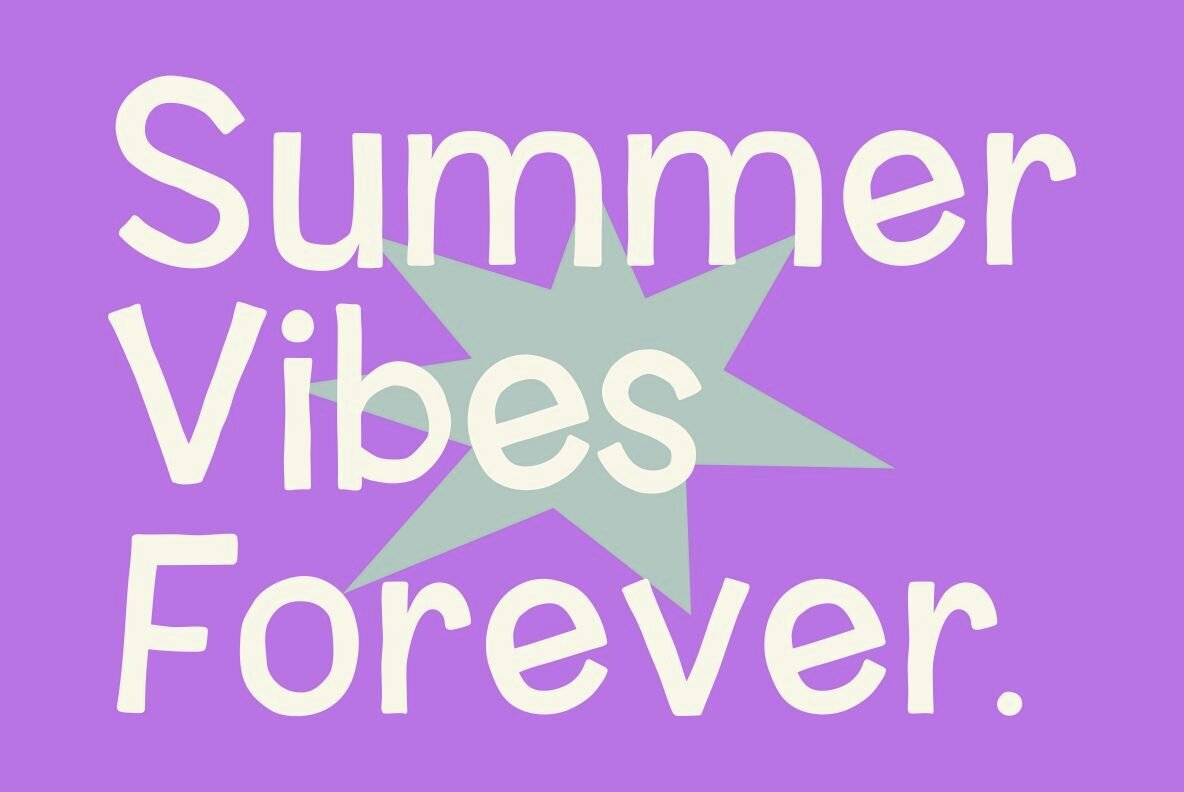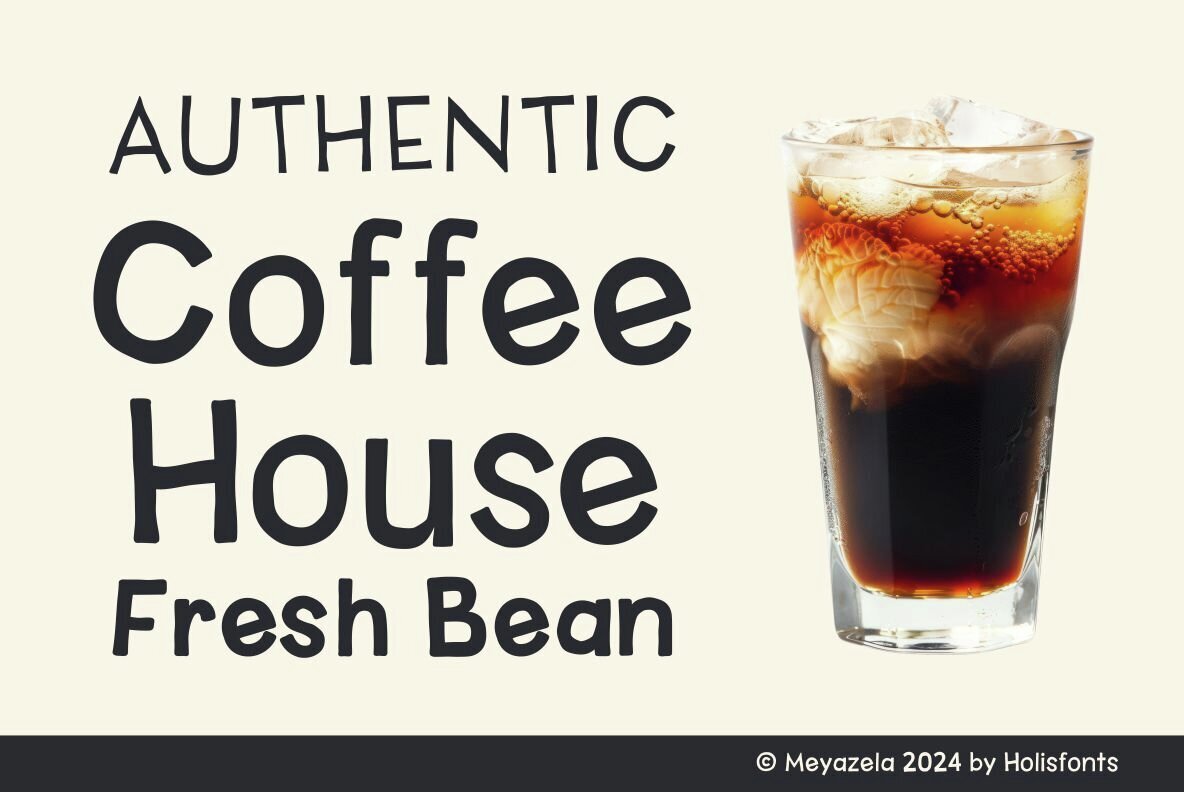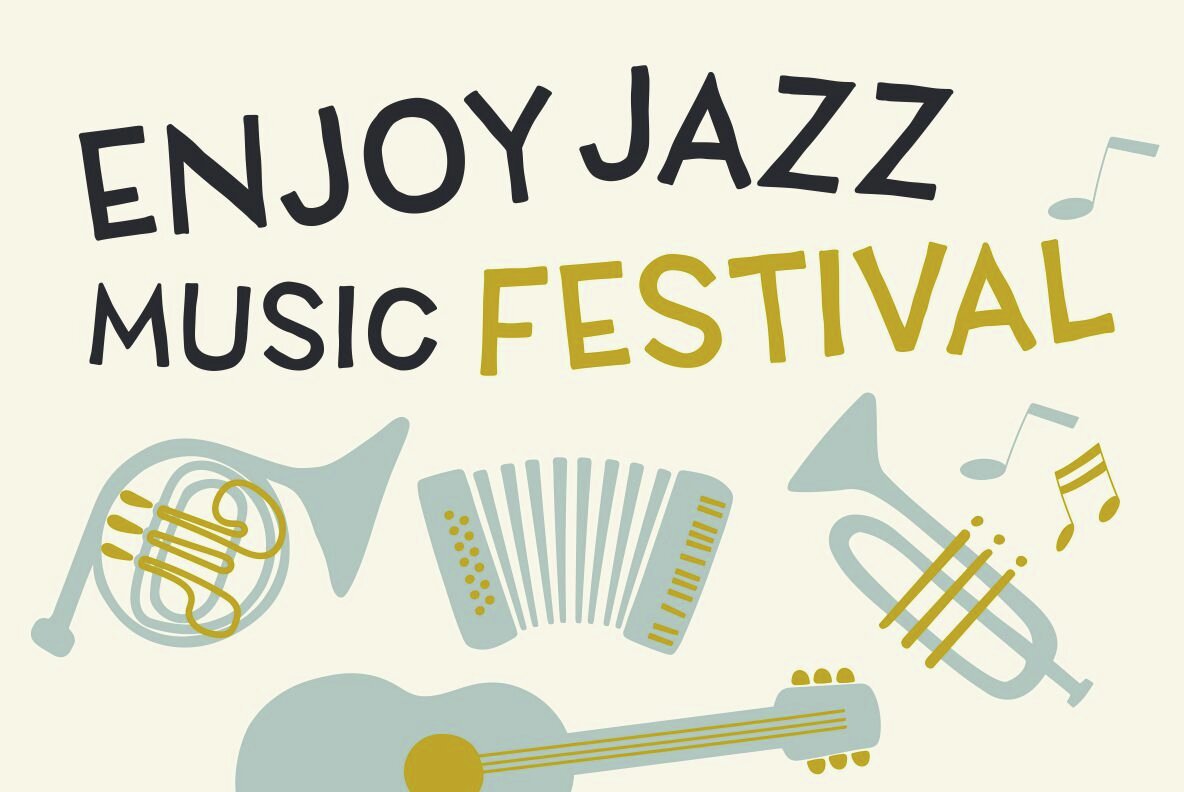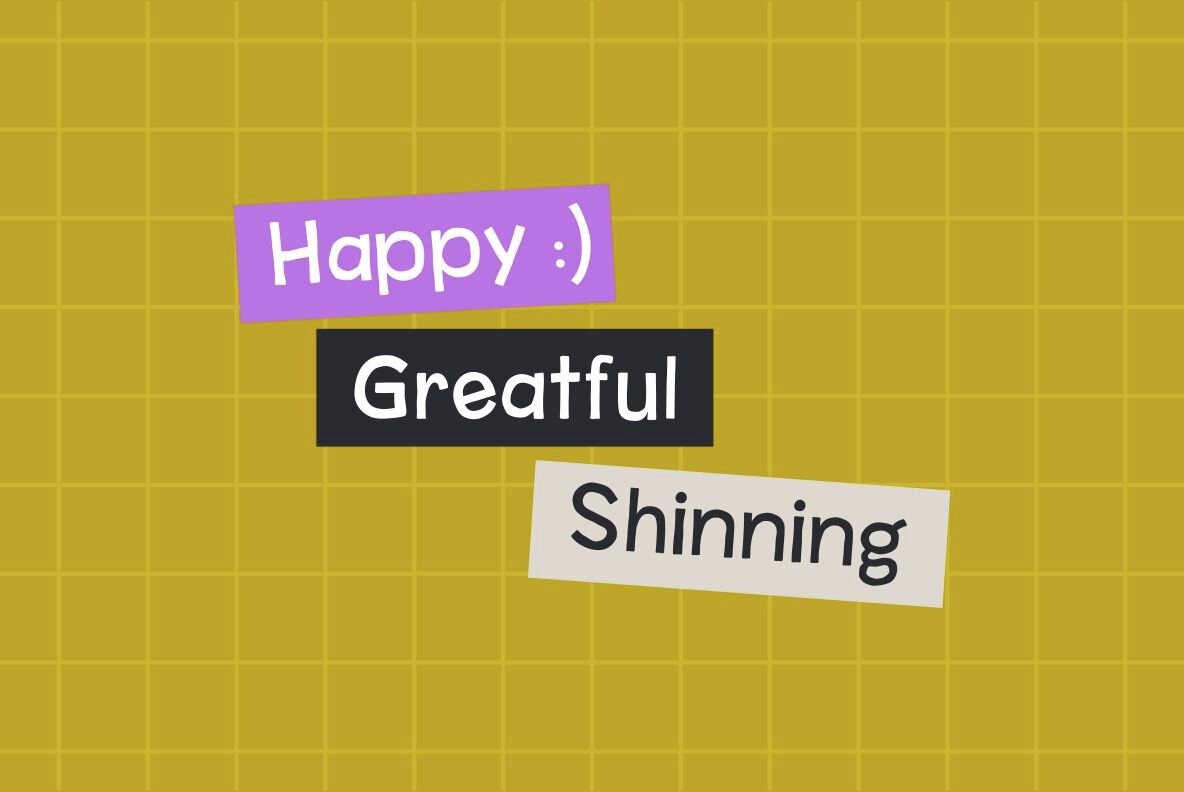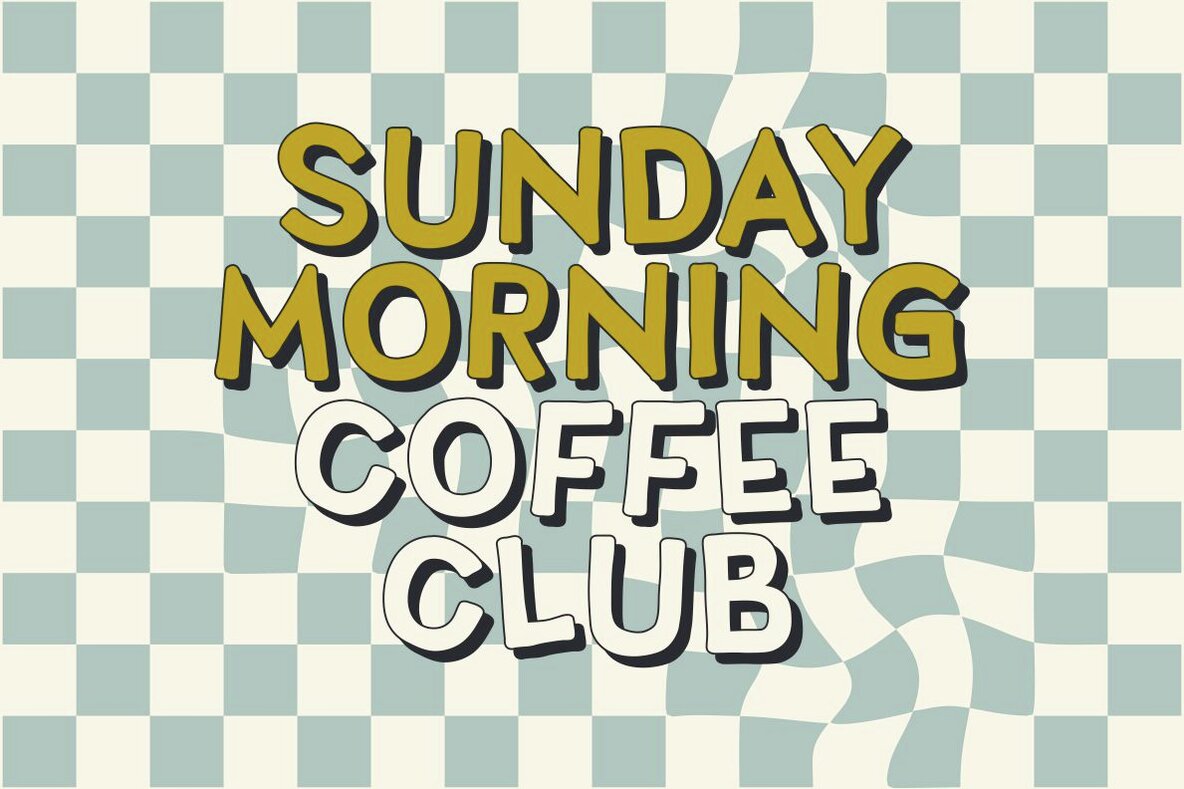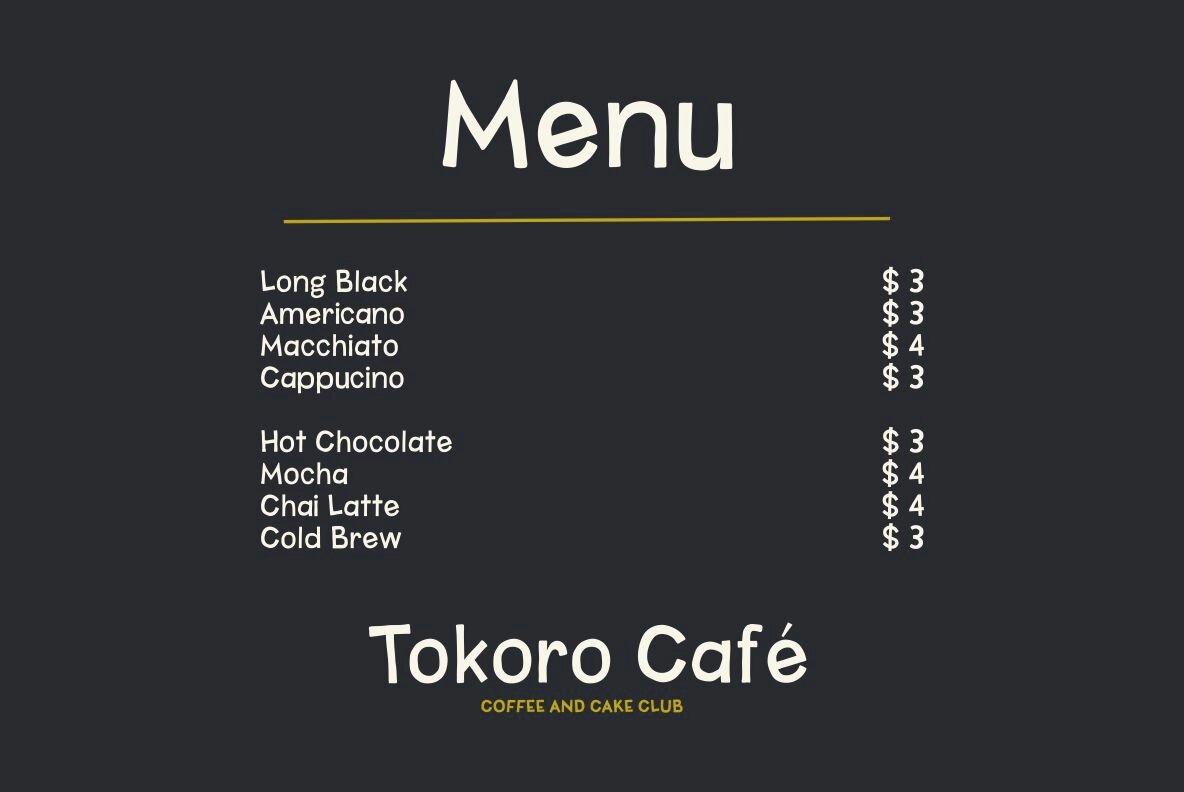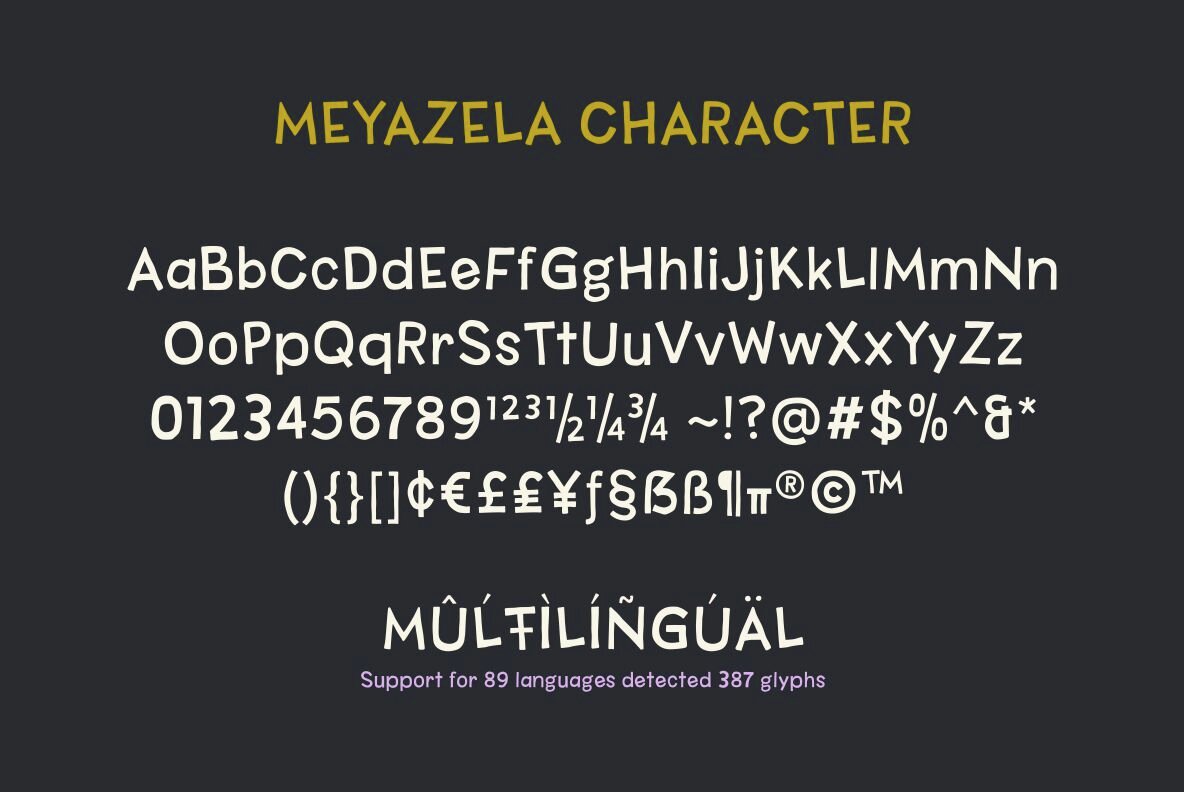
Meyazela  is a hand-drawn sans serif font that is far from neat, which gives a natural, soft and irregular impression. It will look good and charming if applied as a logo and branding for a product. Available in 3 styles that can be mixed and matched creatively, namely Light, Regular and Bold.
Inspired by the covers of children’s books such as picture books, fairy tale books and others, which offer joy in every type.